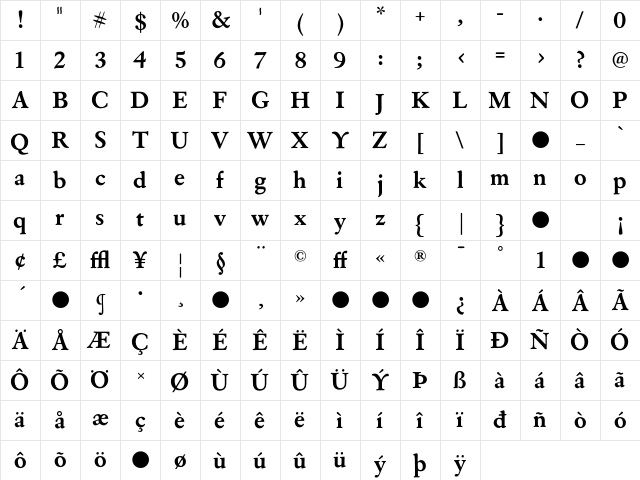
Complete Eldorado Bold glyph index. Displaying only characters natively supported by Eldorado Bold font.
Eldorado is a composed and adaptable typeface that performs quietly and consistently across a wide range of design contexts. Its bold stroke weight gives it real presence on the page.